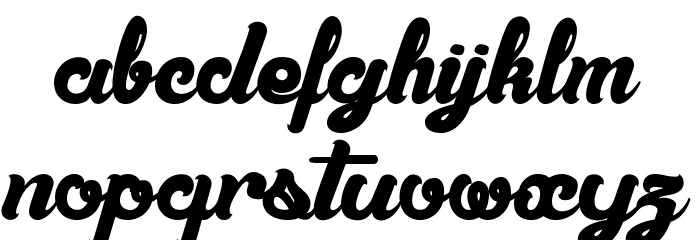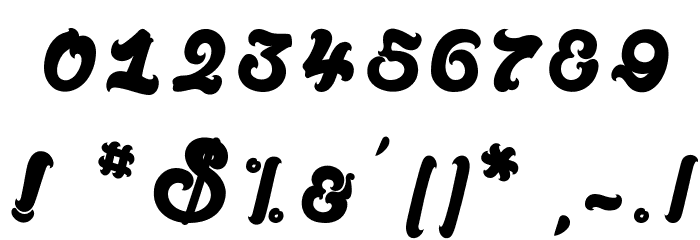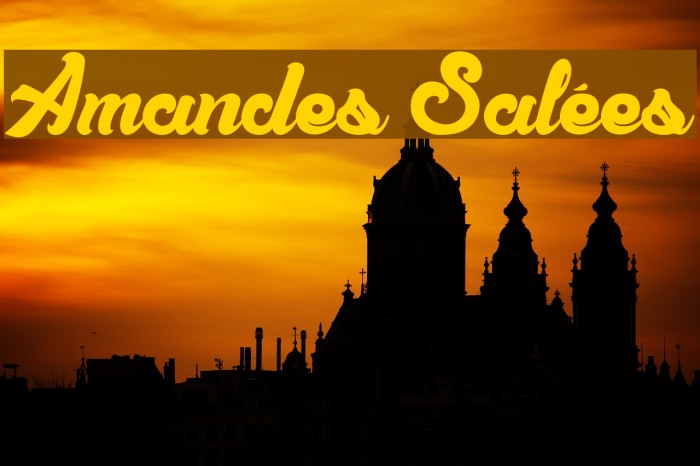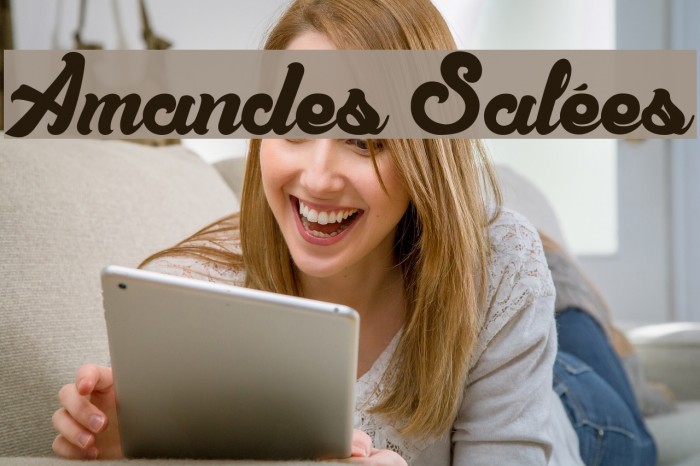
Amandes Salées Font
This font features a bold and playful script style with a strong presence. The characters are connected, giving it a flowing, cursive appearance. Each letter has a distinct, rounded shape with thick strokes, creating a sense of movement and energy. The uppercase letters are slightly more elaborate, while the lowercase letters maintain a consistent rhythm. The numerals and special characters are equally bold, ensuring readability and consistency across all elements. This font's style is reminiscent of retro or vintage signage, making it both eye-catching and nostalgic.
A bold, playful script font with a retro, cursive style.
- Proposed Projects: Ideal for branding, packaging, posters, and any project requiring a vintage or playful touch.
- Character Spacing: Tight
- Overall Style: Vintage